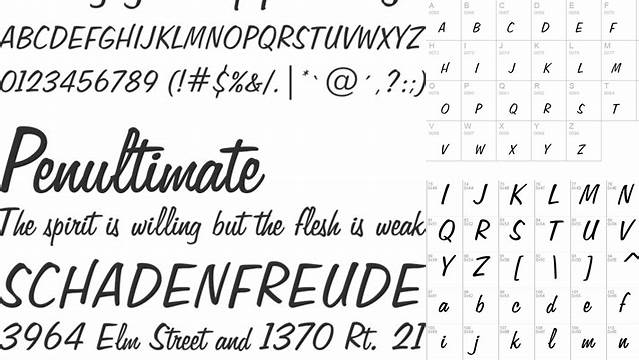
Freehand 575 Font Generator: Create Custom Fonts
Hey guys! Ever wanted to create your own unique font, something that screams you? Well, you're in luck! This article dives deep into the world of Freehand 575 Font Generator, a fantastic tool that empowers you to design custom typography. We'll explore what it is, how it works, and why it's a game-changer for anyone looking to add a personal touch to their designs. Let's get started!
What is Freehand 575 Font Generator?
So, what exactly is this Freehand 575 Font Generator thingamajigger? Basically, it's a software or online tool designed to help you create your own fonts from scratch. Unlike using pre-made fonts, this allows you to express your individual style by designing each letter, number, and symbol yourself. It's like having your own personal font foundry! Think of it as the digital equivalent of drawing letters by hand, but with the added benefit of turning your creations into a fully functional font that can be used in any program. This means you can use your custom font in everything from your website and social media graphics to your documents and presentations. The possibilities are endless, really.
The beauty of a Freehand 575 Font Generator is its flexibility. You're not limited by existing styles or templates. Instead, you have complete creative freedom to experiment with different shapes, sizes, and styles until you achieve the exact look you're going for. Whether you want a playful, whimsical font or a bold, modern one, this tool provides the canvas and the tools you need to bring your vision to life. This is super important for branding purposes! Having a unique font can really set you apart from the competition and create a memorable brand identity.
How Does a Freehand 575 Font Generator Work?
Alright, let's dive into the nitty-gritty of how these generators actually work. Generally speaking, the process involves a few key steps. First, you'll typically start by creating a new project and selecting a template or starting from a blank canvas. Some generators provide pre-designed character outlines that you can modify, which is a great way to get a head start. Once you've set up your project, you'll begin designing the individual characters. This is where your creativity really comes into play! You'll usually have a set of drawing tools at your disposal, such as pens, brushes, and shapes, to create the letterforms. You'll be designing each letter, number, and symbol, from A to Z, 0 to 9, and any special characters you might need.
As you draw, the generator will often show you a preview of your font, so you can see how your characters look together and make adjustments as needed. This preview feature is super helpful for catching any inconsistencies or design flaws early on. Most Freehand 575 Font Generators also allow you to import images or scan your handwriting, which can be a cool way to incorporate your personal style. Imagine designing your own font based on your own signature! That's definitely a conversation starter. Once you're satisfied with your character designs, you'll need to define the font's metrics, such as the spacing between letters (kerning), the width of the characters, and the overall size. This ensures your font looks good and is easy to read. Finally, the generator will compile your designs into a font file, usually in a format like TrueType (.ttf) or OpenType (.otf). You can then install this file on your computer and use it in your favorite design programs, like Adobe Photoshop, Illustrator, or even Microsoft Word.
The whole process might seem complex at first, but most Freehand 575 Font Generators are designed to be user-friendly, even for beginners. Many tools offer tutorials, guides, and tips to help you get started and master the software. And remember, practice makes perfect! The more you experiment with the tool, the better you'll become at designing fonts that perfectly match your vision. This whole thing is great to express your thoughts and ideas.
Benefits of Using a Freehand 575 Font Generator
So, why should you bother with a Freehand 575 Font Generator? The benefits are numerous! First and foremost, it allows you to create truly unique and personalized fonts. This is especially valuable for branding and marketing purposes. A custom font can help you create a strong brand identity that sets you apart from the competition. It shows that you are serious about your brand and willing to go the extra mile to make it look amazing. In today's crowded market, standing out is crucial, and a custom font can be a powerful tool to achieve this. When you create a custom font, you're not just picking something off the shelf; you're crafting a visual representation of your brand's personality and values.
Another great benefit is the flexibility it offers. You're not limited by pre-existing styles. You can design fonts that perfectly match your specific needs and preferences. This is super important for projects where you need a specific look and feel, like a logo, a website header, or a set of promotional materials. Plus, it lets you adapt the font to reflect any changes in your brand's aesthetic. Also, creating your own font can be a lot of fun! It's a creative outlet that allows you to express yourself and explore your artistic side. Designing fonts can be a rewarding hobby and a great way to relax and unwind. Seriously, it's like a fun puzzle! Finally, if you're a professional designer, having font-design skills can boost your career. Being able to offer custom font design services can set you apart from your competitors and give you an edge in the market.
Tips for Designing Effective Fonts
Alright, ready to create your own font? Awesome! Here are some tips to help you design fonts that look great and are also functional and easy to read. First, keep it simple. While it's tempting to create overly complex designs, remember that your font needs to be legible at various sizes. Clean, simple letterforms often work best. Focus on the overall shape and structure of each letter.
Consider the contrast between thick and thin strokes. This contrast adds visual interest and helps define the character's shape. Make sure that the contrast is consistent throughout the font. A well-designed font should have a consistent visual style. Second, pay attention to the spacing between letters. This is super important for readability. Good kerning can make or break a font. Adjust the space between each character to ensure the letters flow smoothly together. This is where the Freehand 575 Font Generator's preview feature comes in handy. You can preview your font and see how it looks in different words and sentences.
Third, experiment with different styles. Try designing fonts that are sans-serif, serif, or script-based. You can also experiment with different weights (bold, light, etc.). This will give you a broader range of options and help you find the perfect style for your project. Think about the context in which your font will be used. Is it for headlines, body text, or both? Choose a style that is appropriate for your intended use. Finally, seek feedback from others. Show your font to friends, colleagues, or other designers and ask for their opinions. They can provide valuable feedback that will help you refine your designs. Don't be afraid to experiment and have fun! Font design is a creative process, so embrace the opportunity to explore and express your style.
Popular Freehand 575 Font Generators
Let's check out some of the popular Freehand 575 Font Generators out there!
- FontForge: This is a powerful, open-source font editor that's free to use. It offers a wide range of features and is suitable for both beginners and experienced font designers. It's a great option for those who want a lot of control over their font design.
- Glyphs: Glyphs is a professional-grade font editor for macOS. It's known for its user-friendly interface and its ability to handle complex font designs. It offers a wide range of features, including support for variable fonts.
- Calligraphr: Calligraphr is a web-based font generator that's super easy to use. It allows you to create fonts from your handwriting or scanned images. This is a great option for creating fonts that are personalized and unique.
- BirdFont: BirdFont is another free, open-source font editor that's available for Windows, macOS, and Linux. It's known for its simplicity and its ability to create high-quality fonts.
These are just a few examples, and there are many other great font generators available. The best one for you will depend on your needs and preferences. Try experimenting with a few different options to see which one you like best.
Conclusion: Unleash Your Inner Font Designer
There you have it! A complete guide to Freehand 575 Font Generators. You're now equipped with the knowledge to start creating your own unique fonts. Whether you're a designer, a business owner, or just someone who loves typography, this tool can help you add a personal touch to your creative projects. Don't be afraid to experiment, have fun, and let your creativity flow! Go out there, design some awesome fonts, and make your mark on the world of typography. You got this!